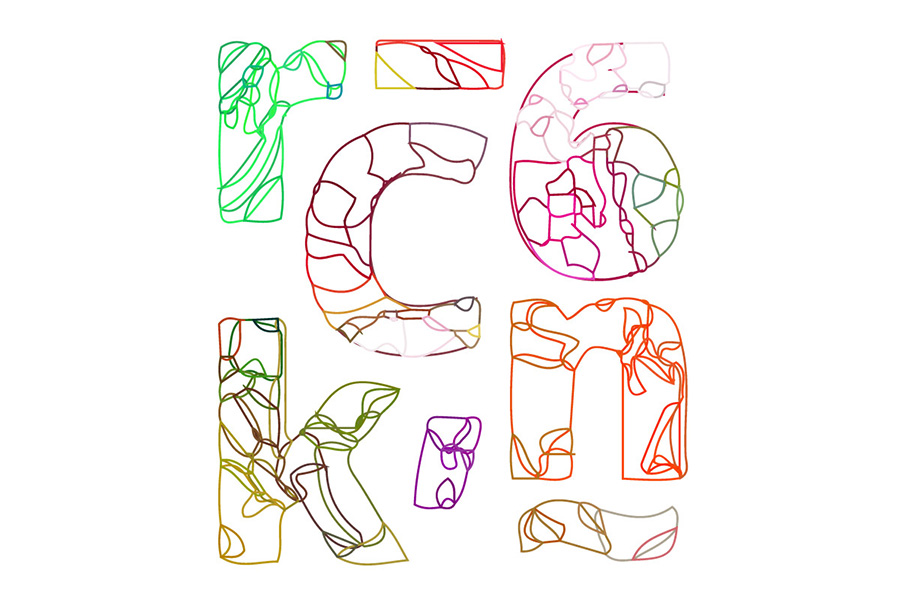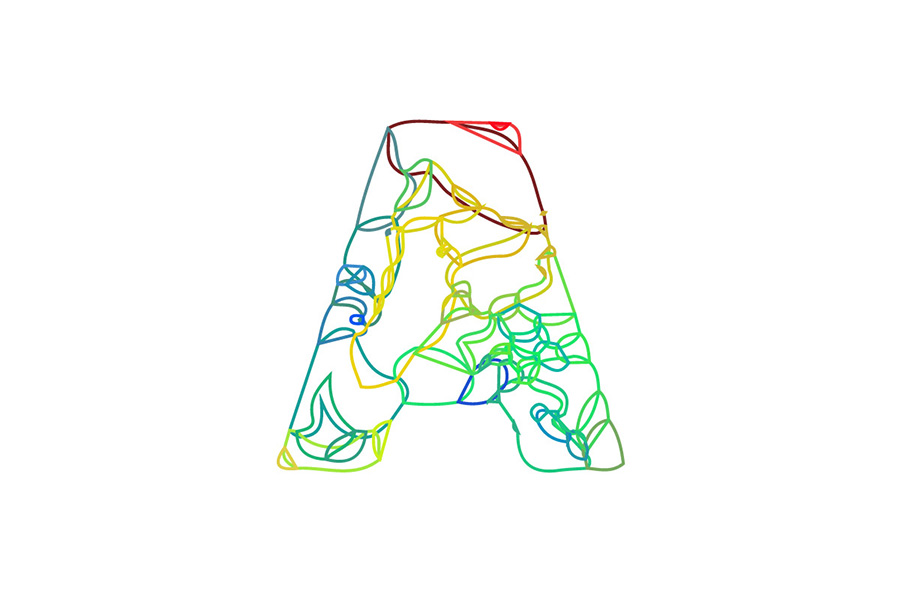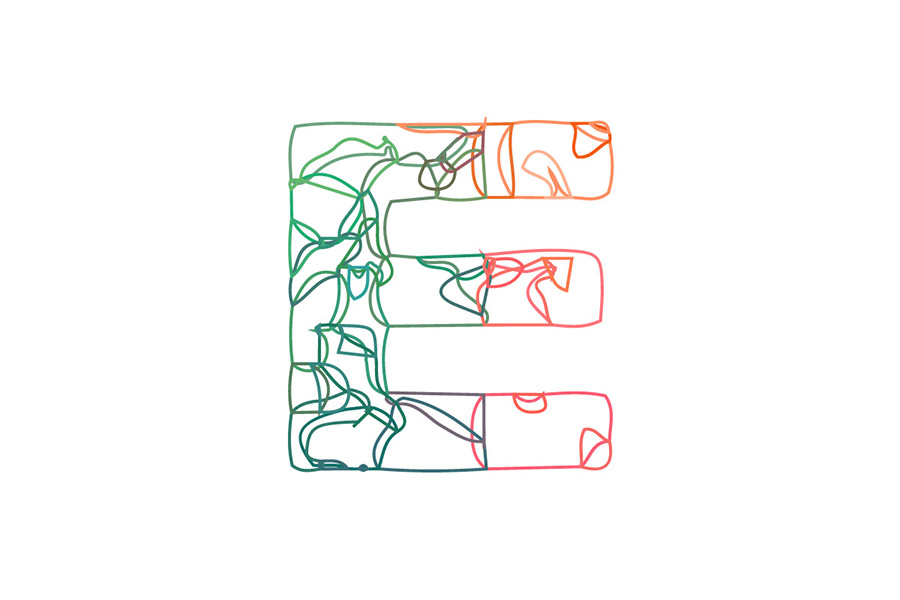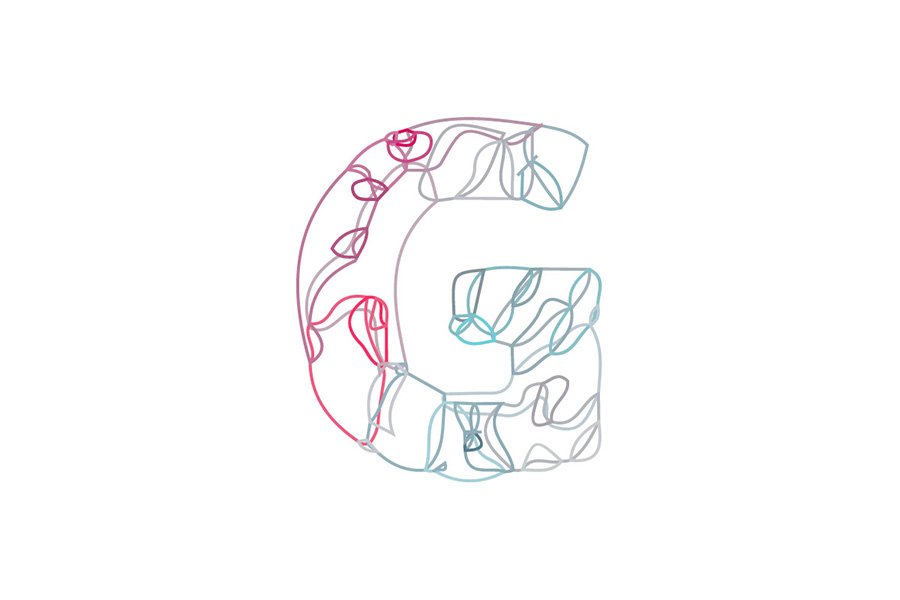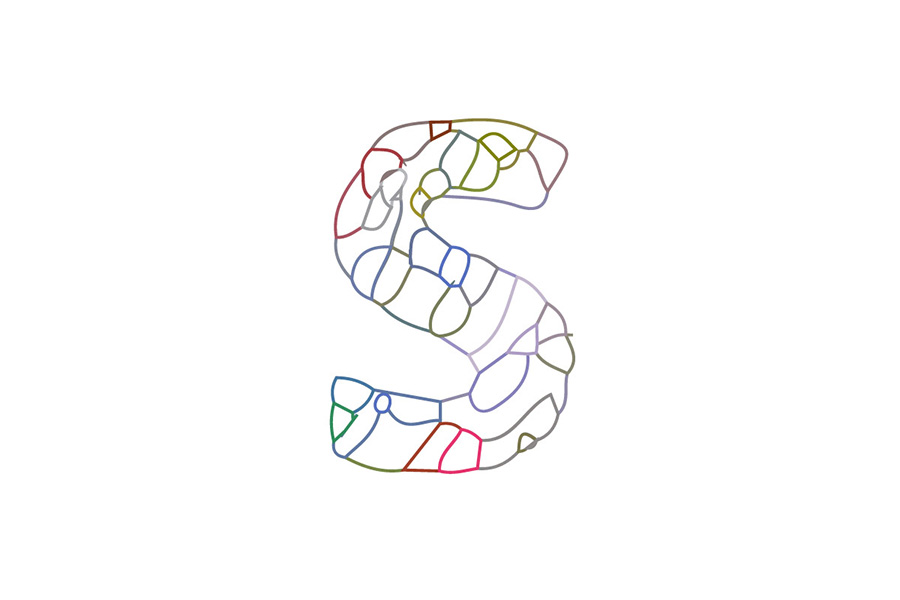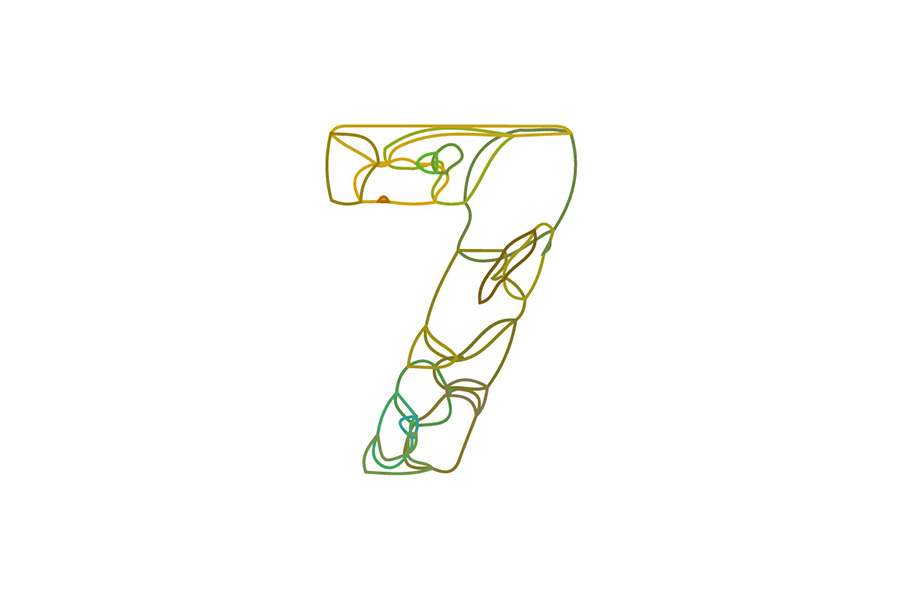
Introducing Colorful Dream Outline Font: A Vibrant and Unique Typography Experience
Are you tired of using the same old fonts for your design projects? Do you want to add a pop of color and creativity to your typography? Look no further than the Colorful Dream Outline Font, a chromatic font that is sure to take your designs to the next level. In this article, we’ll explore the features and benefits of this exciting font, and how you can use it to create stunning projects.
What is Colorful Dream Outline Font?
Colorful Dream Outline is a color font, also known as a chromatic font, that supports Latin, Persian, and Arabic scripts. What sets it apart from other fonts is its unique and complex design, where every single glyph has a different set of colors. This means that you can create projects that are truly one-of-a-kind and visually striking.
When you take a closer look at the glyphs, you’ll notice a intricate set of paths and connections that make up each character. This level of detail and craftsmanship is reminiscent of typographic paintings, making each glyph a miniature masterpiece.
So, what are the benefits of using Colorful Dream Outline Font for your design projects? Here are just a few:
- Unique and eye-catching designs: With its complex and colorful glyphs, this font is sure to grab attention and make your projects stand out.
- Versatility: Colorful Dream Outline Font supports multiple scripts, making it a great choice for designers who work with a range of languages and alphabets.
- Creative freedom: With its intricate designs and multiple colors, this font gives you the freedom to experiment and push the boundaries of typography.
In conclusion, Colorful Dream Outline Font is a game-changer for designers and crafters looking to add a touch of color and creativity to their typography. With its unique and complex design, versatility, and compatibility with popular design software, this font is sure to inspire and delight. So why settle for ordinary fonts when you can create something truly extraordinary with Colorful Dream Outline Font?
Whether you’re a seasoned designer or a crafty DIY enthusiast, we invite you to explore the possibilities of Colorful Dream Outline Font and discover a world of vibrant and captivating typography.